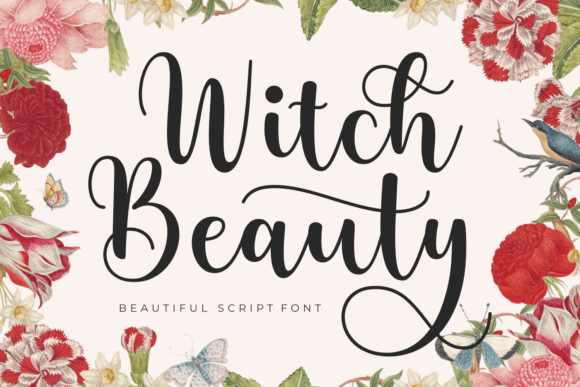
Venture into the realm of enchanting elegance with Witch Beauty Font, a captivating calligraphy typeface that weaves a spell of sophistication and charm. Its graceful strokes, reminiscent of a poet's quill, dance harmoniously across the baseline, adding a touch of magic to your creative endeavors.
Indulge in the luxurious embrace of Witch Beauty Font, where each letter is a stroke of artistic brilliance. Its romantic and sweet demeanor lends an air of timeless beauty to any design project, be it a wedding invitation, a fashion magazine spread, or a heartfelt letter to a loved one.
Experience the creative freedom that Witch Beauty Font unlocks. Its PUA encoding grants you effortless access to a treasure trove of glyphs and ligatures, empowering you to conjure unique and captivating designs. Unleash your imagination and let the font's inherent grace elevate your projects to new heights of sophistication.
With Witch Beauty Font, you hold the key to unlocking a world of elegance and enchantment. Its enchanting allure is guaranteed to leave a lasting impression, captivating your audience with its timeless beauty and undeniable charm. Embrace the magic of Witch Beauty Font and transform your creative visions into masterpieces of art.